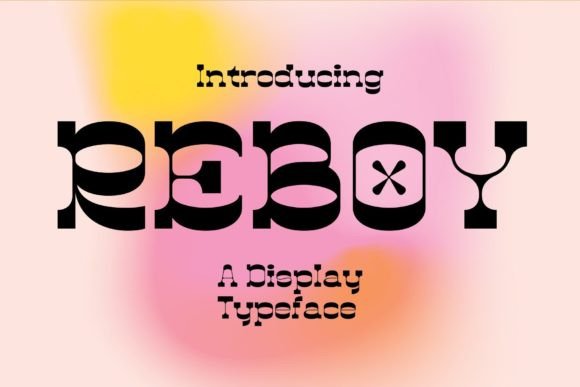
Jump into an intoxicating world of nostalgia and let your creativity transcend boundaries with Reboy Font, an exclusive offering from Authentype, rekindling the exuberant spirit of the 1980s. Inspired by captivating cultural creations that once enthralled society, Reboy Font embodies the essence of art, music, literature, fashion, dance, and cinema, capturing the essence of that era's captivating allure.
Reboy Font, a display font that dances across your screen with its distinctive style, is a visual masterpiece that seamlessly blends the past and the present. Its unique charm elevates your projects with an air of sophistication, adding a touch of elegance to logos and bringing depth and character to your designs.
Harness the power of its charisma to captivate your audience, leaving them spellbound by your creations. From sleek and stylish logos to eye-catching posters, Reboy Font effortlessly commands attention, inviting your viewers into a world of timeless allure and undeniable charisma.